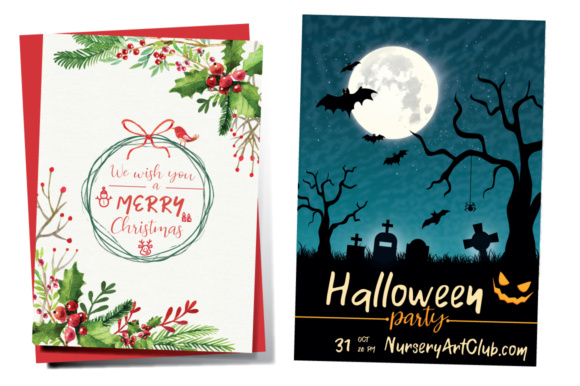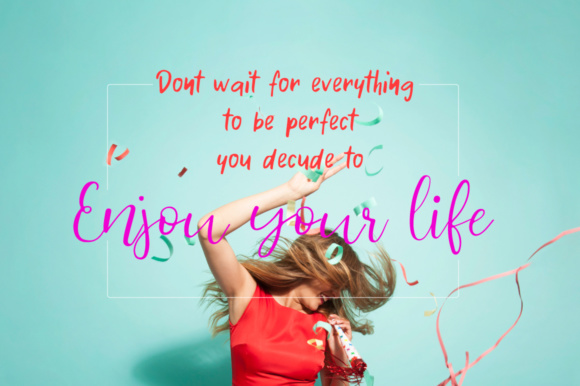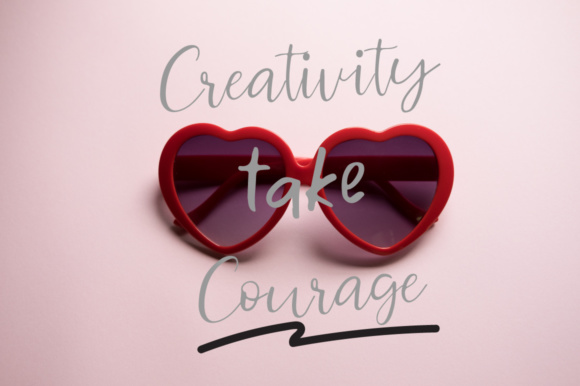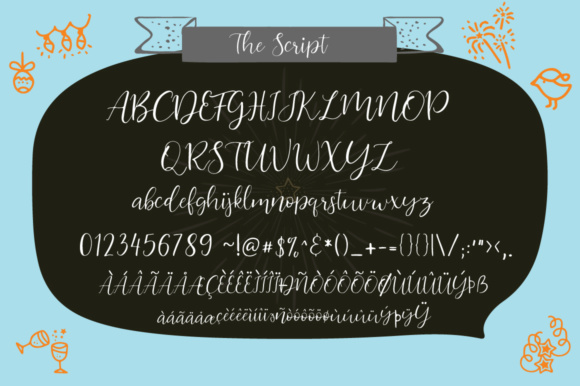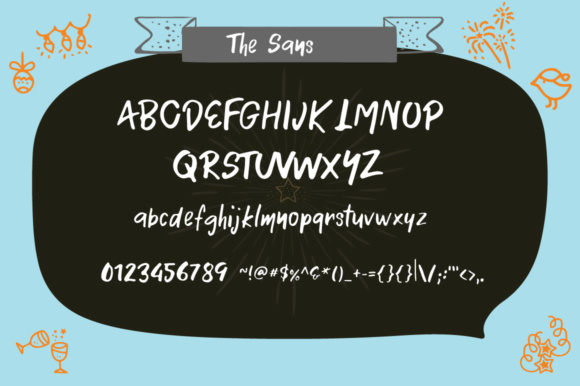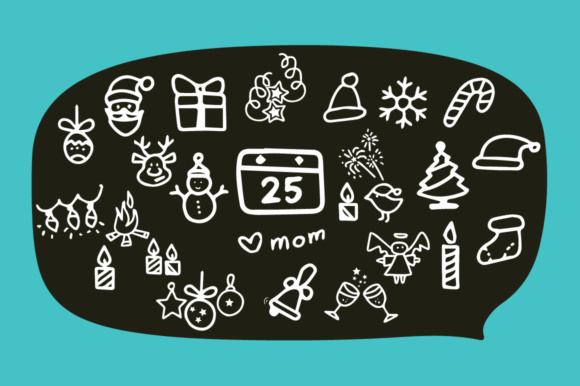
Silent Night Duo Font
About Silent Night Duo Font
The Silent Night is a handwritten script font. It’s perfect for wedding invitations, blogs, frames, book covers, and much more!